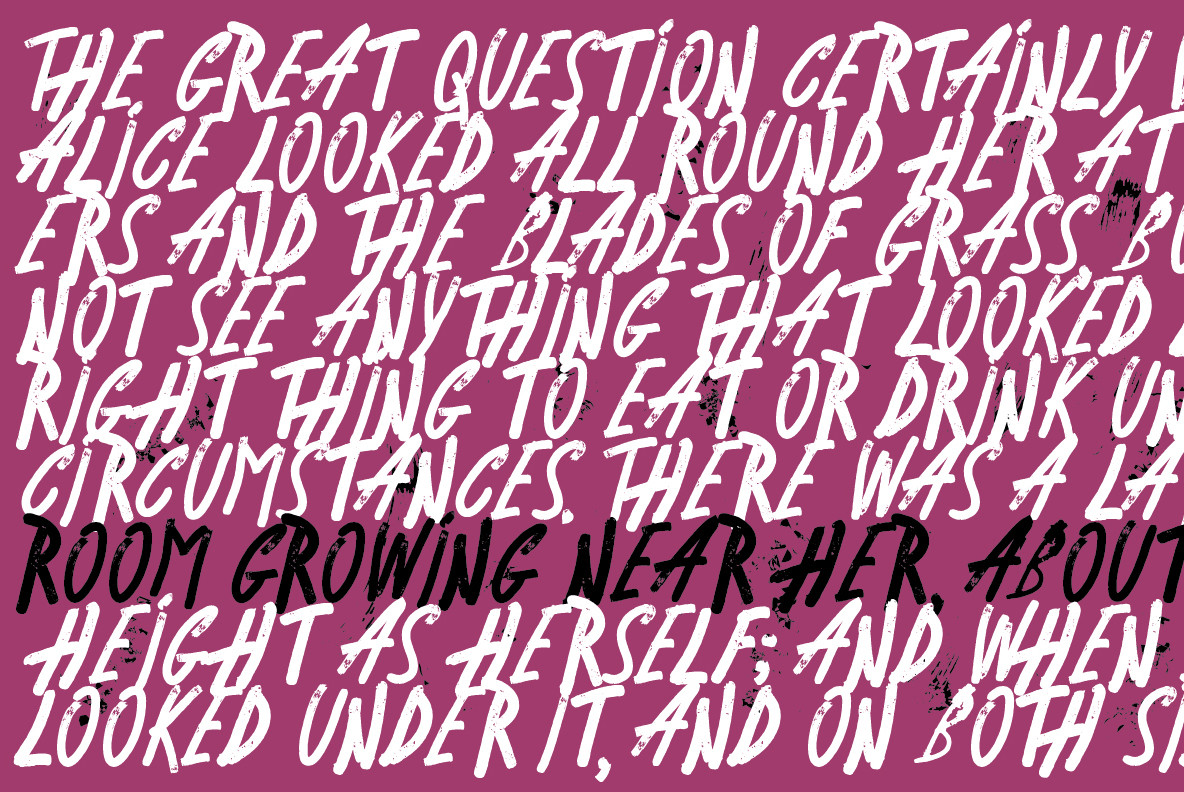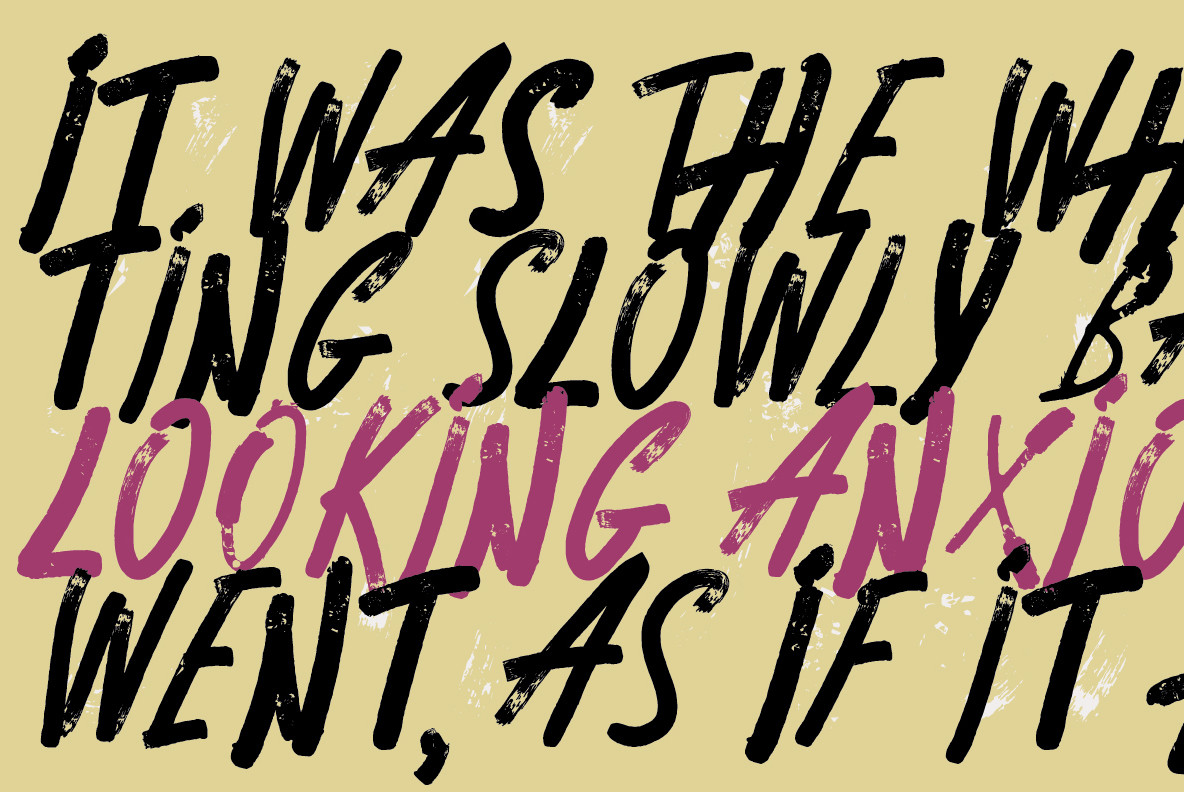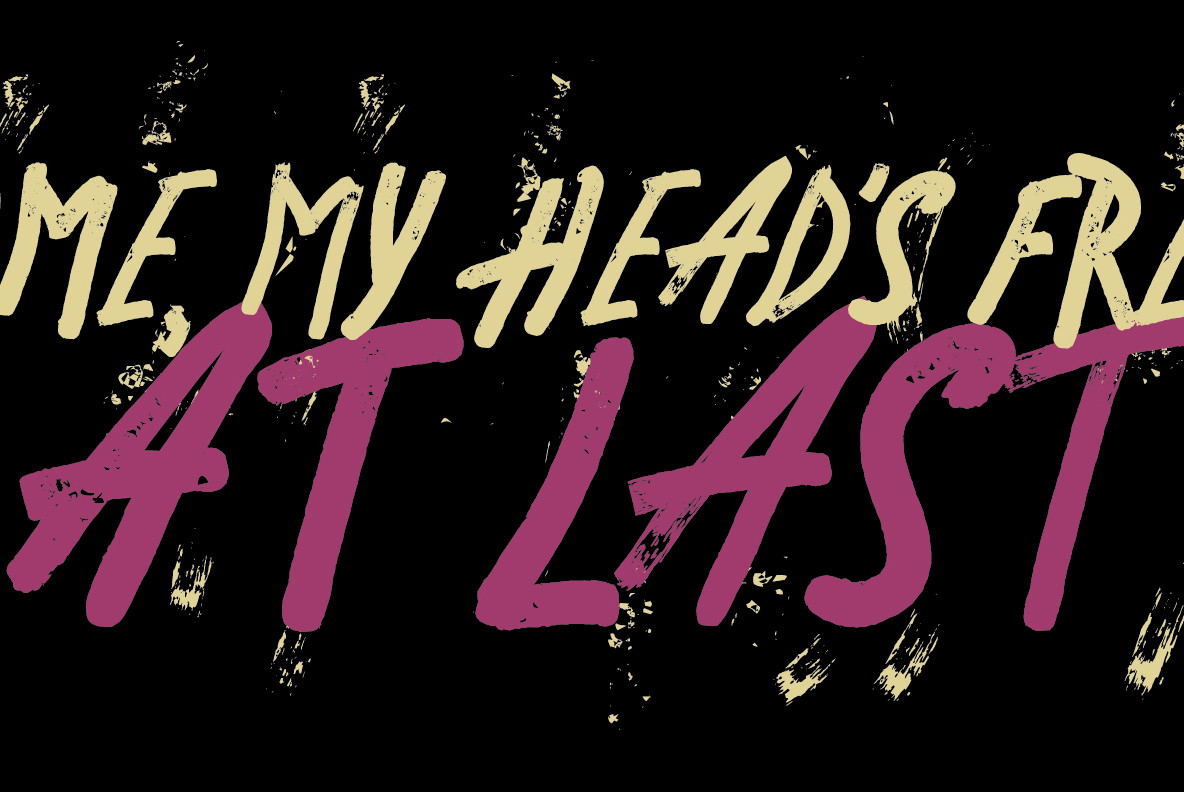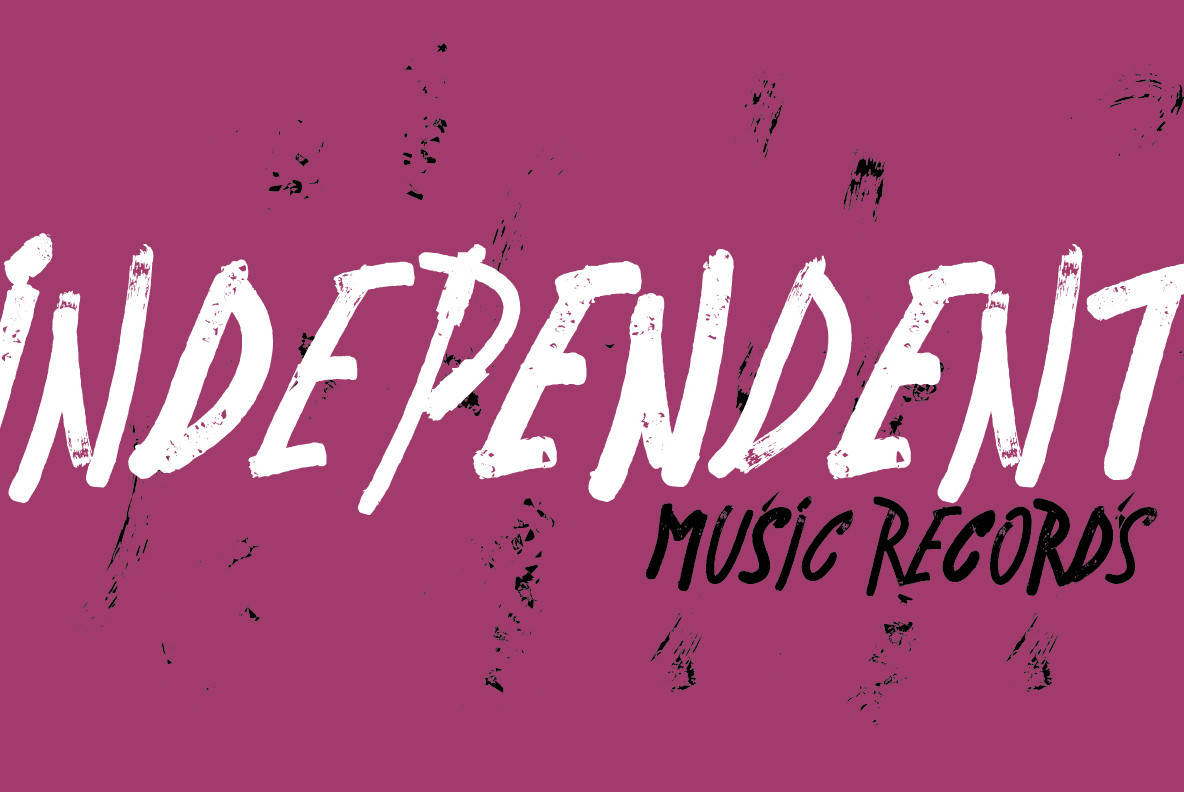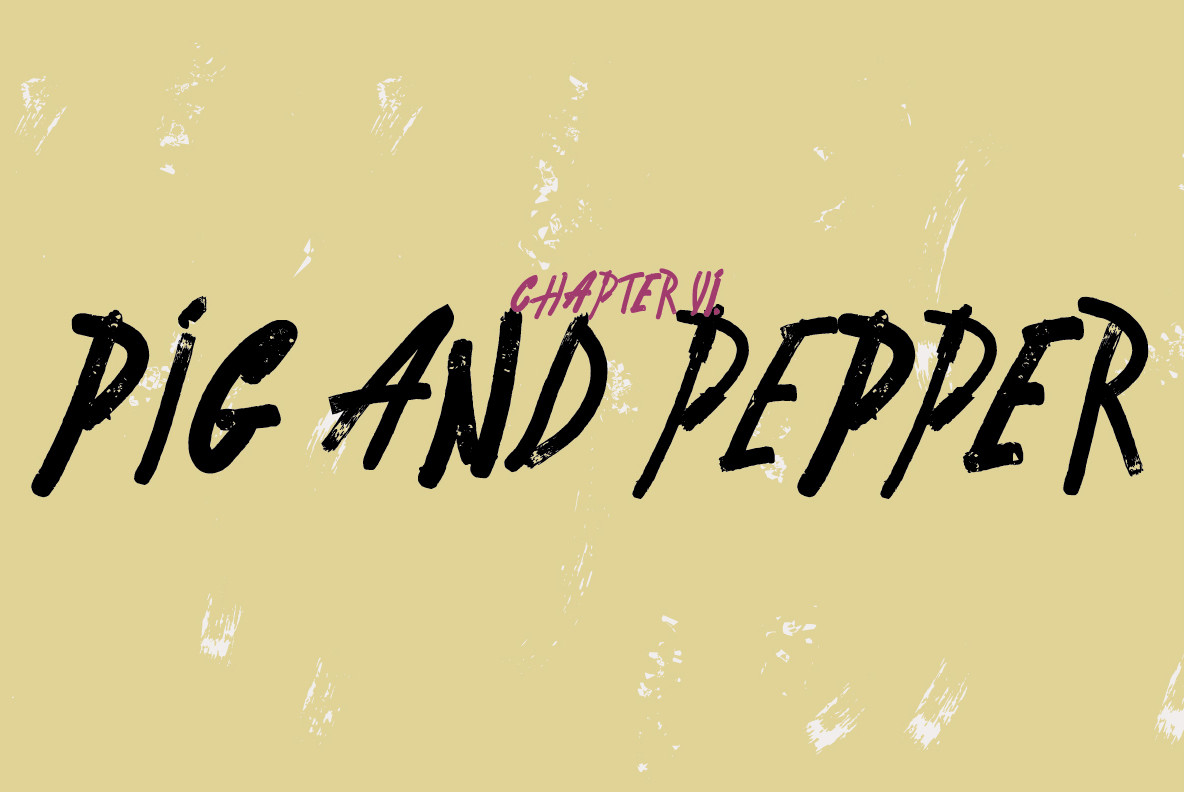
Scripton Font
Scripton Regular
Bouncy, slanted and urban brush typeface Scripton combines 2 different glyph weights within single font file which gives an specific rhythm and contrast to titles and paragraphs.